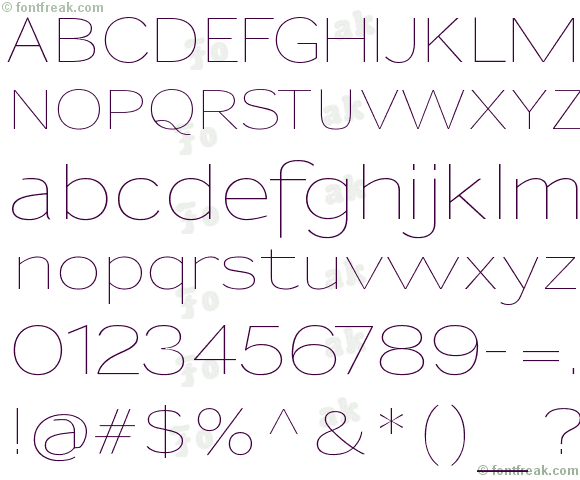
Sansumi-UltraLight
About Sansumi-UltraLight
Sansumi-UltraLight is a striking sans-serif typeface designed by Manfred Klein, known for its elegant simplicity and contemporary aesthetic. Released as freeware, this font is characterized by its ultra-light stroke weight, which offers a delicate and airy feel to any design. The even spacing between characters enhances readability while maintaining a modern look, making it ideal for various applications. The clean lines and minimalistic design reflect a refined sensibility, appealing to designers seeking versatility in their typography.
This font's visual characteristics include a consistent stroke weight with subtle contrasts, allowing for a smooth flow of text that is both engaging and easy on the eyes. The absence of decorative elements ensures that the font remains timeless, making it suitable for a range of projects. As a result, Sansumi-UltraLight is perfect for use in wedding invitations, where its understated elegance can convey sophistication and romance. It also works well in restaurant menus, adding a touch of refinement without overwhelming the design. Additionally, it can be effectively utilized in corporate branding materials and website headers, where clarity and professionalism are essential.
Targeting graphic designers, small business owners, and content creators alike, Sansumi-UltraLight offers a unique solution for those who wish to elevate their visual communications. Its free availability encourages experimentation and creative exploration, making it accessible for all levels of design experience.
What truly sets Sansumi-UltraLight apart is its harmonious balance between modernity and simplicity, making it an excellent choice for anyone looking to create an impactful visual statement. With its elegant form and versatile applications, the Sansumi-UltraLight font free download is an essential addition to any designer's toolkit, enabling endless creative possibilities.